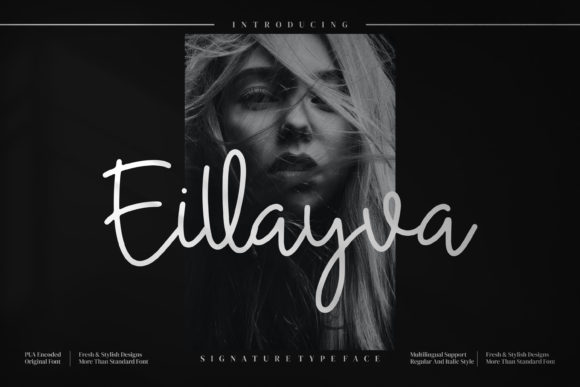
Prepare yourself to be mesmerized by Eillayva Font, a calligraphy masterpiece that captures the essence of handwritten charm and simplicity. Journey into a world of creative possibilities with this script font, meticulously crafted to evoke a sense of authenticity and realism in your designs. Whether you're a seasoned designer or just starting your creative journey, Eillayva Font is your perfect companion for adding a personal touch to your projects.
Immerse yourself in the beauty of Eillayva Font, a captivating script font that dances across your screen like a gentle melody. Its graceful curves and playful strokes create a sense of movement and fluidity, effortlessly capturing the essence of handwritten elegance. Unleash your imagination and let Eillayva Font guide you through a world of creative expression, where your words come alive with a touch of magic.
With Eillayva Font, you'll discover a font that's not just visually stunning but also incredibly versatile. Its meticulously crafted characters lend themselves effortlessly to a wide range of creative endeavors. Whether you're creating chalkboard quotes, teaching materials, or simply adding a personal touch to your designs, Eillayva Font has got you covered. Its authentic look seamlessly blends with any style, adding a touch of charm and sophistication to your projects.
Experience the joy of effortless creativity with Eillayva Font. Its intuitive design makes it a breeze to use, even for beginners. Whether you're a seasoned designer or just starting out, you'll find that Eillayva Font is incredibly user-friendly. Unleash your creativity without limits, knowing that this font will faithfully translate your vision into reality.
But don't just take our word for it. Join the growing community of designers who have discovered the magic of Eillayva Font. From professional graphic designers to hobbyists and crafters, they've all been captivated by its beauty and versatility. See for yourself how Eillayva Font can transform your creative projects and elevate them to new heights.
Don't let this opportunity pass you by. Add Eillayva Font to your collection today and embark on a journey of limitless creativity. Let your imagination soar as you explore the endless possibilities that await you with this enchanting script font. Eillayva Font is more than just a font; it's an invitation to unleash your creativity and make a statement with your designs.